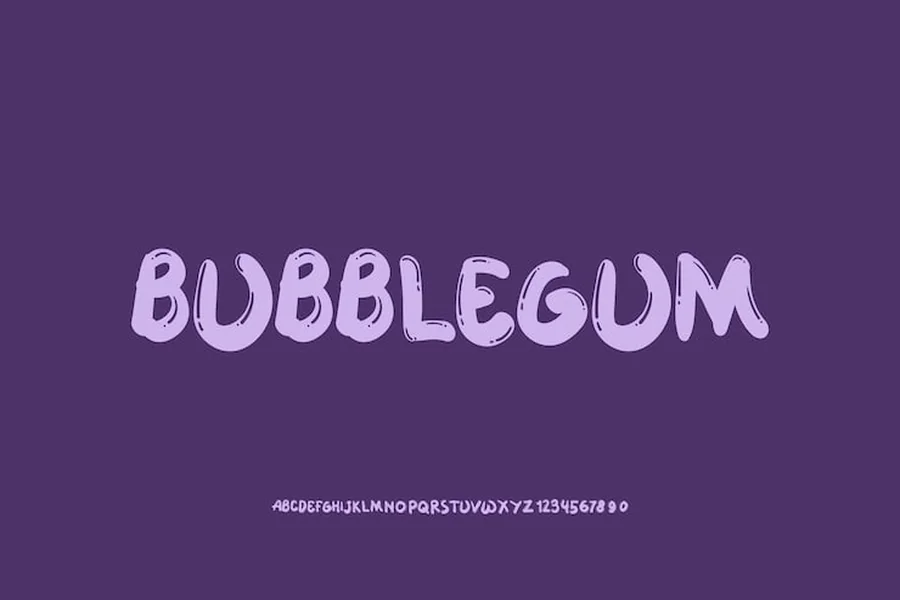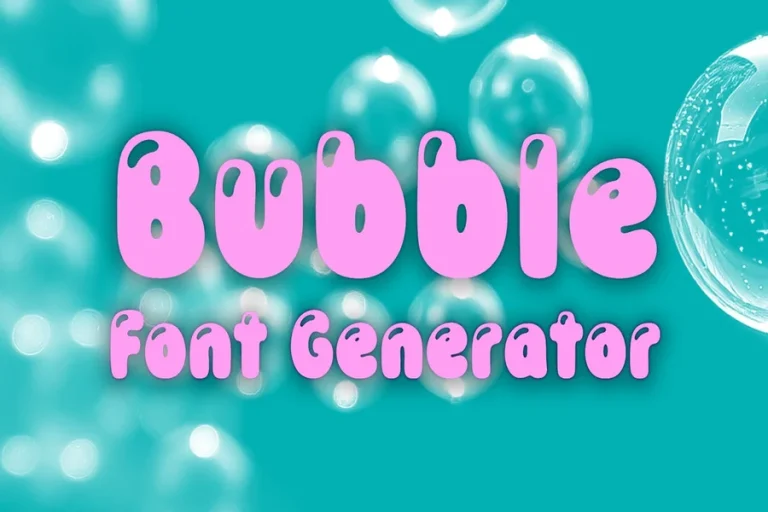
Fun Bubble Fonts That Add Joy Style And Playful Energy
Fun Bubble Fonts
They make design merry and fun with the use of bubble fonts. They are light hearted and joyful. Smiling whenever people view fun bubble fonts they do not think about it. These fonts are friendly and bold simultaneously. They are effective in children projects logos posters social posts and innovative branding. Their simplicity makes them easy to read and yet rich in personality which is an adoration of designers.
The round soft and expressive fonts are fun bubbles. They feel warm and welcoming. They tend to take people back to balloons candy, or cartoons. It is such an emotional attachment that makes them a popular show every year. Properly deployed they bring about an appealing visual identity that is fun and modern.
This tutorial discusses fun bubble fonts in detail. You will also know how they work and where to place them and how to select the appropriate one. You are also going to find numerous font name ideas that are capable of inspiring your next design.
What Makes Fun Bubble Fonts Special
The brightness of the fonts is due to the attractiveness of soft forms and the presence of bubbles. Letters are usually inflated or round or like bubbles in the air. This makes designs childish and light-hearted.
Such fonts can be read conveniently even in a distance. That is why they are good in posters banners and social graphics. They are also effective on the digital content where focus counts.
The other reason why designers are into fun bubble fonts is that it can be flexible. They are either cute bold silly or even stylish regarding how they are used. They have the right colors and can fit a lot of moods with their spacing.
Smoking fonts are commonly thick strokes with flowing curves. This renders them approachable to the eye. They are not often harsh or formal. It is why they are so effective with the brands that intend to be friendly and innovative.
Fun Bubble Fonts
Where Fun Bubble Fonts Work Best
Playful fonts are trendy in fun bubbles. They are ideal in the content of books games and learning materials that are child friendly. They are also good to use as birthday cards party invitations and event posters.
The graphics in social media usually have fun bubble fonts that are used to capture attention within a short period of time. They are salient in feeds and are more intimate in comparison to standard fonts.
The fonts are also trendy in food branding particularly of sweets ice cream and snacks. The full-figured appearance is pleasant and happy.
Fun bubble fonts are usually used as logos with creative businesses. They are used by artists and small brands that produce contents to express personality and affections.
Fun bubble fonts are used as prints and packaging even on casual fashion brands. The smiling look usher in younger viewers.
Popular Styles Inside Fun Bubble Fonts
There are numerous styles of fun bubble fonts. Others are thick and heavy whereas others are light and airy. Others appear hand drawn whereas others are smooth and computer generated.
Bubble fonts are in a cartoon style and playful. Retro bubble fonts are based on antique signs. The contemporary bubble fonts are clean with smooth curves.
Shadows or outlines are added to some fonts in order to make them look three dimensional. Others stay flat and simple. Others are bulky and others are thin yet rounded.
This diversity will enable designers to choose the very specific mood. It is a fun silly cute or a stylish font that is suitable.
Popular Fun Bubble Fonts Names
Here are more than fifty fun bubble fonts that designers often love and use. Each name brings a unique feel and style.
Bubblegum Bliss
Candy Pop
Jelly Bean
Puffy Play
Sweet Bounce
Happy Bubbles
Gummy Drop
Balloon Joy
Soft Pop
Bubble Smile
Sugar Puff
Cloudy Fun
Marshmallow Mood
Pop Snap
Happy Float
Bubble Beat
Fun Puff
Sweet Air
Roundy Joy
Kiddy Pop
Play Dough
Jolly Bubble
Candy Cloud
Bounce House
Fluffy Fun
Popcorn Pop
Bubble Charm
Sugar Rush
Happy Dots
Soft Swirl
Balloon Pop
Cute Curve
Fun Flick
Joy Bounce
Cloud Pop
Bubble Buzz
Sweet Loop
Play Pop
Puffy Dream
Cheery Type
Bubble Hug
Smile Pop
Happy Font
Joyful Bubble
Candy Bounce
Soft Popper
Fun Float
Bubble Party
Dream Puff
Jolly Joy
These names show how wide the world of fun bubble fonts can be. Each one suggests a different mood and style that can inspire creative work.
How to Choose the Right Fun Bubble Fonts
The Other factor in selecting the appropriate fun bubble fonts is your project. Think first about your audience. Children and families react positively to colorful jovial forms. Adolescents and young adults can be fond of cleaner and more modern bubble look.
Then consider readibility. There are also bubble fonts that are excellent in short headings but not in extended writing. Always practice the appearance of the font in practice.
Color also matters. Colorful bubble fonts go well with light or pastel colors. Do not use bland colors that make them less playful.
Also think about spacing. Bubble fonts require space to breathe in. Creating space makes them appear to be upright and clear.
Finally think about emotion. Happy cute silly, bold or not. Choose a font that corresponds to that emotion.
Why Designers Love Fun Bubble Fonts
Fun bubble fonts are popular among designers as they add character in a second. They make fun out of simple words. They make brands make them personable.
They are simple to tailor and combine with other aspects. You are able to add outlines shadows or textures to them so as to make them special.
Fun bubble fonts can also be used in most platforms. They are very handsome in print digital and even animation.
They assist designs in cutting across the crowded areas. Among all that looks serious is a playful font.
Majority of fun bubble fonts make one happy. Such emotional attachment is strong in architecture.
Final Thought
Fun bubble fonts are not just funny letters. They are instruments of manifestation of pleasure and innovation. They make messages cordial and welcoming. These fonts can instantly elevate your work whether you are creating brands events or social content even when it comes to designing kids.
There are a great number of different styles and names that you can never fail to find the right fit. Discover experiment and have fun with bubble fonts in your designs.
FAQs
What are fun bubble fonts used for?
Fun bubble fonts are used for playful designs such as kids content posters logos social media and creative branding.
Are fun bubble fonts good for professional projects?
They can be used in professional projects that want a friendly or creative tone such as startups or lifestyle brands.
Can fun bubble fonts be used for logos?
Yes many brands use fun bubble fonts for logos to appear friendly and memorable.
Do fun bubble fonts work for long text?
They work best for titles and short text rather than long paragraphs.